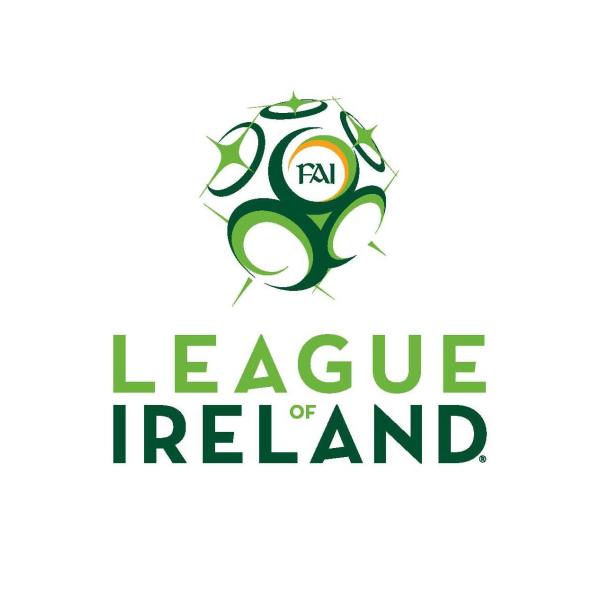
League of Ireland Font
Fonts in UseLeague of Ireland is the top professional football league in the Republic of Ireland, featuring clubs from across the country competing for the title.
The font likely utilized for the logo is Neutra No.2 Text Bold, a geometric sans-serif font created by Christian Schwartz for House Industries. Additional information on this font is available here.